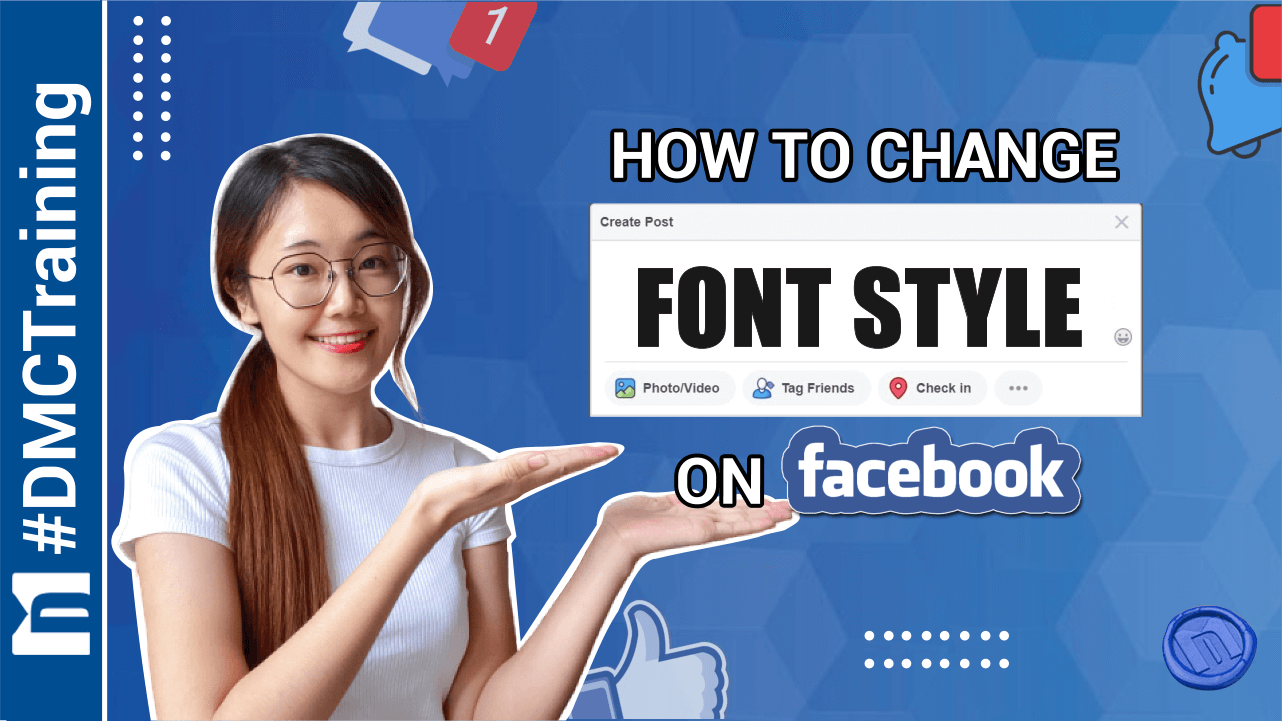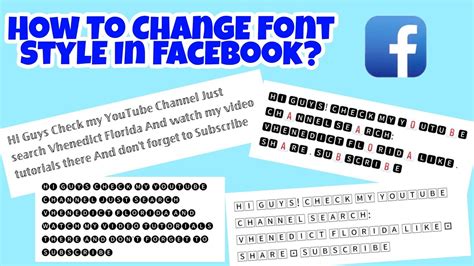
Facebook Font Style
Facebook Font Style - Script text is one of the fanciest text styles we have here. It gives a look of facebook cursive text. Web generate a variety of cool unicode font styles that you can copy and paste into facebook, twitter, etc.
Script text is one of the fanciest text styles we have here. It gives a look of facebook cursive text. Web generate a variety of cool unicode font styles that you can copy and paste into facebook, twitter, etc.
It gives a look of facebook cursive text. Web generate a variety of cool unicode font styles that you can copy and paste into facebook, twitter, etc. Script text is one of the fanciest text styles we have here.
Web generate a variety of cool unicode font styles that you can copy and paste into facebook, twitter, etc. Script text is one of the fanciest text styles we have here. It gives a look of facebook cursive text.
Web generate a variety of cool unicode font styles that you can copy and paste into facebook, twitter, etc. It gives a look of facebook cursive text. Script text is one of the fanciest text styles we have here.
Script text is one of the fanciest text styles we have here. Web generate a variety of cool unicode font styles that you can copy and paste into facebook, twitter, etc. It gives a look of facebook cursive text.
Web generate a variety of cool unicode font styles that you can copy and paste into facebook, twitter, etc. Script text is one of the fanciest text styles we have here. It gives a look of facebook cursive text.
Web generate a variety of cool unicode font styles that you can copy and paste into facebook, twitter, etc. It gives a look of facebook cursive text. Script text is one of the fanciest text styles we have here.
Web generate a variety of cool unicode font styles that you can copy and paste into facebook, twitter, etc. Script text is one of the fanciest text styles we have here. It gives a look of facebook cursive text.
It gives a look of facebook cursive text. Script text is one of the fanciest text styles we have here. Web generate a variety of cool unicode font styles that you can copy and paste into facebook, twitter, etc.
Script text is one of the fanciest text styles we have here. Web generate a variety of cool unicode font styles that you can copy and paste into facebook, twitter, etc. It gives a look of facebook cursive text.
Web generate a variety of cool unicode font styles that you can copy and paste into facebook, twitter, etc. It gives a look of facebook cursive text. Script text is one of the fanciest text styles we have here.
Script Text Is One Of The Fanciest Text Styles We Have Here.
It gives a look of facebook cursive text. Web generate a variety of cool unicode font styles that you can copy and paste into facebook, twitter, etc.